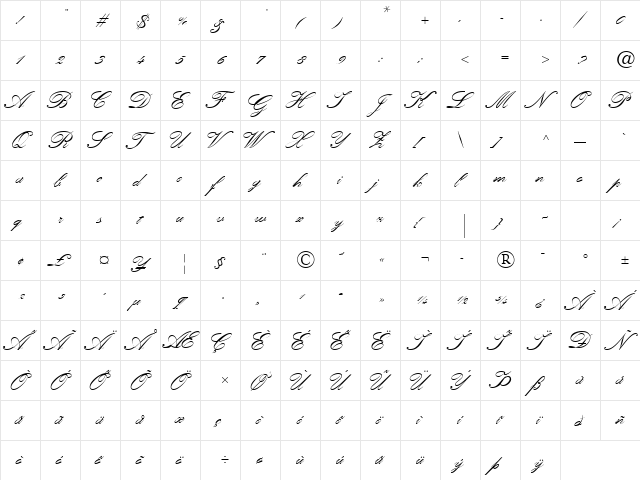
Kuenstler Script LT Std Two Bd Regular Font Preview
| Designer | Hans Bohn |
Design Context for Kuenstler Script LT Std Two Bd Typeface
Kuenstler Script LT Std Two Bd brings a calligraphic fluidity to the page — its connecting strokes and expressive curves give it an unmistakably human quality. The heavy weight commands attention and anchors typographic hierarchies.
Font Pairing: Combine Kuenstler Script LT Std Two Bd with a simple geometric sans for maximum contrast — the tension between flowing curves and clean structure is a classic typographic pairing.
Pro Tip: Pair Kuenstler Script LT Std Two Bd with a clean sans-serif for supporting text. The contrast between fluid script and geometric structure creates an elegant typographic hierarchy.